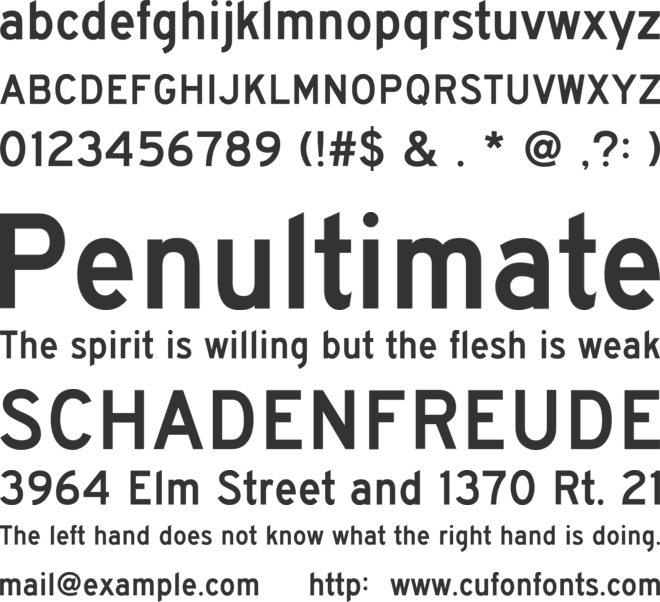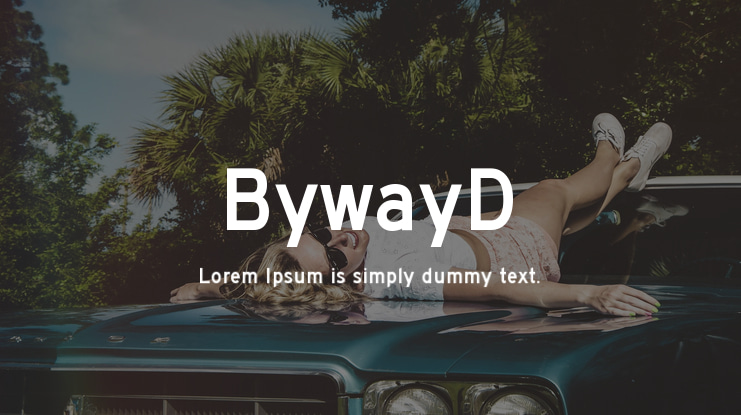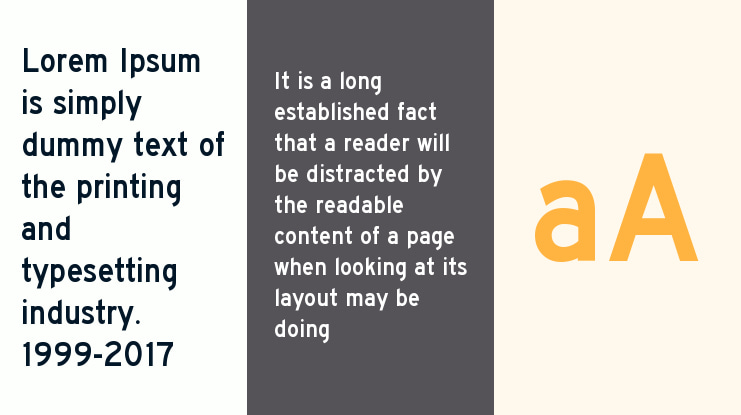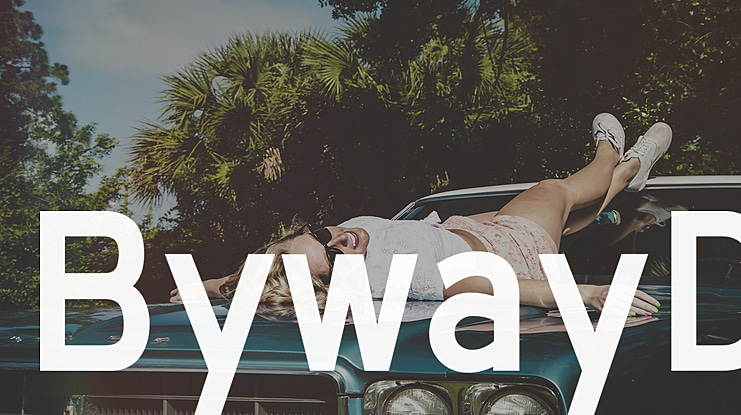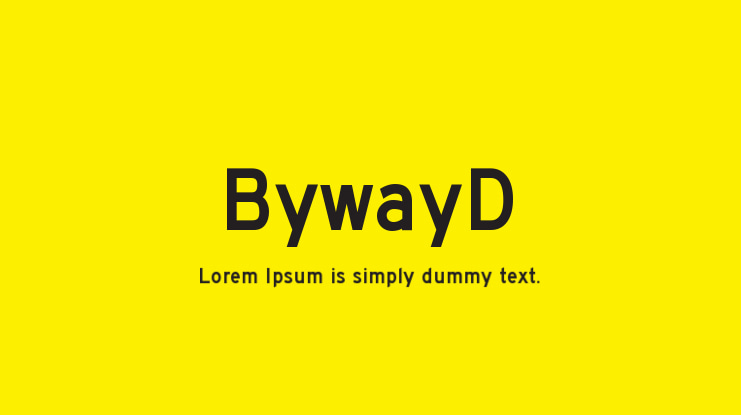
BywayD Font
This font represents a smooth middle point between the existing Series B and Series F typefaces. It is not related to the existing Series D font.